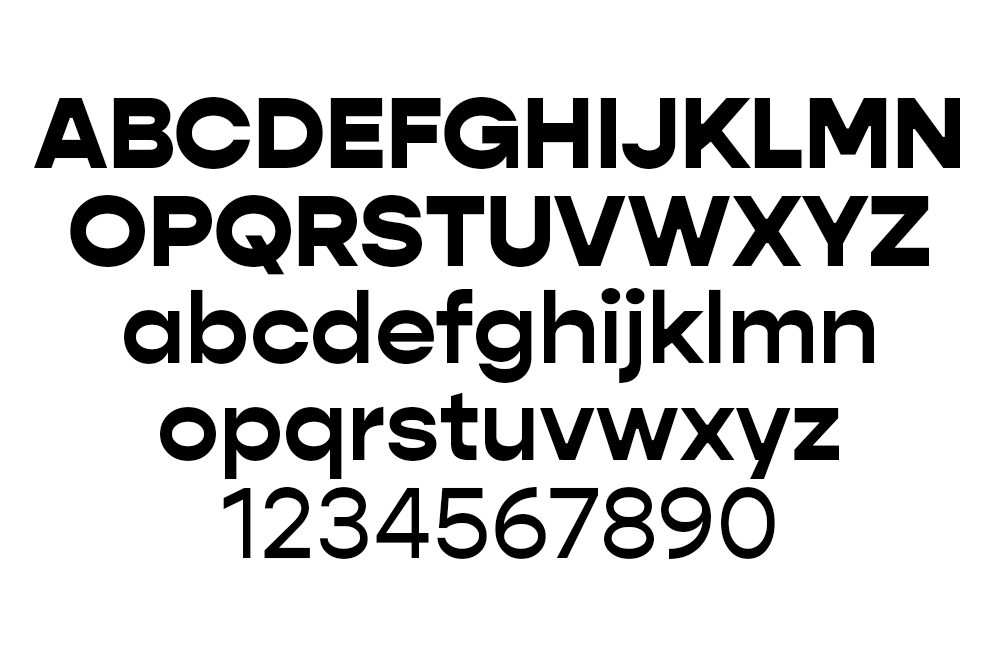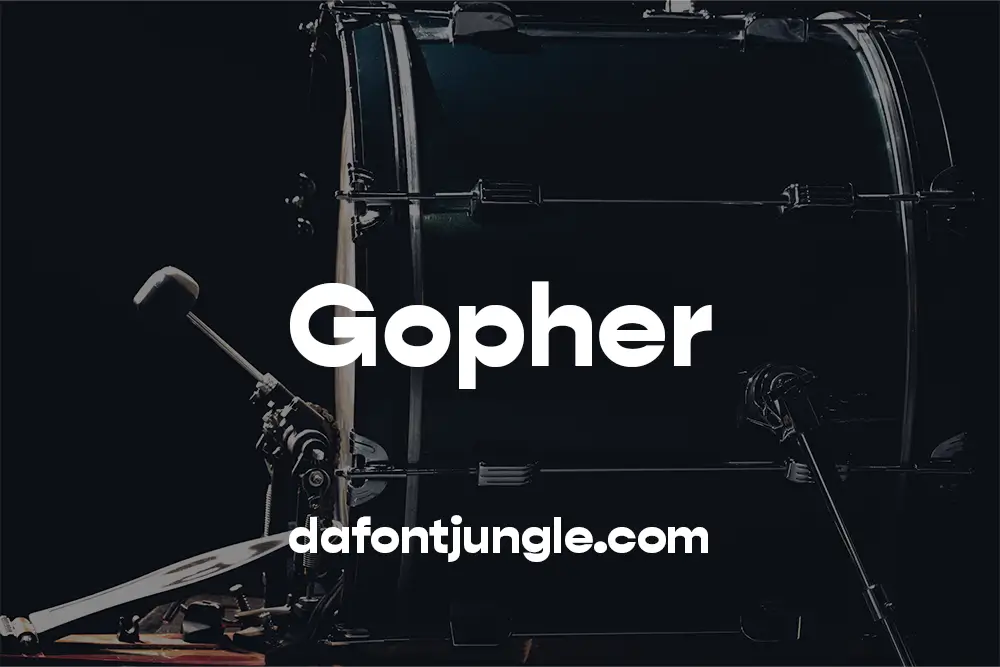
Gopher – Reverse Contrast Geometric Sans
Gopher is a unique geometric sans-serif font with reverse contrast. Instead of thick verticals, it uses heavier strokes on the top and bottom. This gives it a bold, modern look that stands out in any design.
The family includes three styles: Normal, Text, and Display. Each style has 16 fonts, from Hairline to Heavy, with matching italics. Gopher works well for branding, posters, editorials, web design, and UI.
It also comes with advanced features like swash capitals, stylistic alternates, ligatures, and full language support.